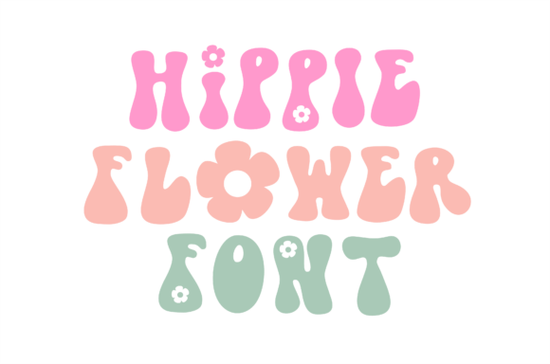
If you're working on a design that calls for warmth, nostalgia, and a touch of whimsy, the Hippie Flower Font might be just what you need. Inspired by the free-spirited energy of the 1960s and 70s, this decorative typeface blends soft, rounded letterforms with delicate daisy motifs nestled inside the counters those open spaces in letters like “o” or “e.” The result is a font that feels both playful and peaceful, perfect for projects that celebrate summer, nature, or retro aesthetics.
Whether you’re designing posters for a local music festival, creating custom t-shirts, or building social media graphics for a wellness brand, Hippie Flower adds personality without overwhelming your layout. Its hand-drawn charm works especially well when you want your message to feel personal and uplifting.
What makes this font stand out for crafters and small businesses?
Unlike standard display fonts, Hippie Flower includes tiny floral details integrated directly into the glyphs. These aren’t just overlays they’re part of the letter shapes themselves, which means your text stays clean and cohesive even at smaller sizes. Plus, it comes in multiple file formats: OTF for professional design software like Adobe Illustrator, SVG and PNG for digital cutters and web use, and EPS and DXF for Cricut or Silhouette machines. That flexibility makes it a practical choice whether you’re printing vinyl stickers or designing an Instagram story.
For print-on-demand sellers, this font can help differentiate your products. A simple quote like “grow through what you go through” feels fresh and heartfelt when set in Hippie Flower especially on mugs, tote bags, or wall art targeting audiences who love cottagecore, boho, or vintage-inspired styles.
How does it compare to other decorative fonts?
Not all decorative fonts balance readability and detail as well as this one does. If you’ve tried fonts like Dog Life, which leans into quirky pet-themed lettering, or Soul Cards, designed with spiritual journaling in mind, you know that context matters. Hippie Flower fills a specific niche: retro optimism with botanical flair.
It’s also more versatile than ultra-niche options like the Negative Space Army Stencil, which excels in tactical or urban themes but wouldn’t suit a yoga retreat flyer. Similarly, while educational tools like the ABCD Ref Dashed Dotted Tracing Font serve classroom or kids’ activity needs, Hippie Flower speaks to emotional tone and visual mood ideal when your goal is to evoke calm, joy, or nostalgia.
Where can you actually use this font?
Thanks to its cheerful yet legible design, Hippie Flower works across many real-world applications:
- Branding: Logos or packaging for natural skincare, herbal tea shops, or eco-friendly products.
- Apparel: T-shirt quotes, embroidery designs, or band merch with a vintage festival vibe.
- Social content: Instagram quotes, Pinterest pins, or TikTok thumbnails that benefit from soft, inviting typography.
- Print crafts: Greeting cards, wall decals, or planner stickers where a handmade feel enhances the message.
Just remember: because of its detailed flourishes, it’s best used for headlines, short phrases, or accent text not body copy. Pair it with a clean sans-serif (like Montserrat or Lato) for contrast and clarity.
One tip: if you’re layering the font over photos or textured backgrounds, consider adding a subtle drop shadow or outline in your design app to keep the delicate flowers visible.